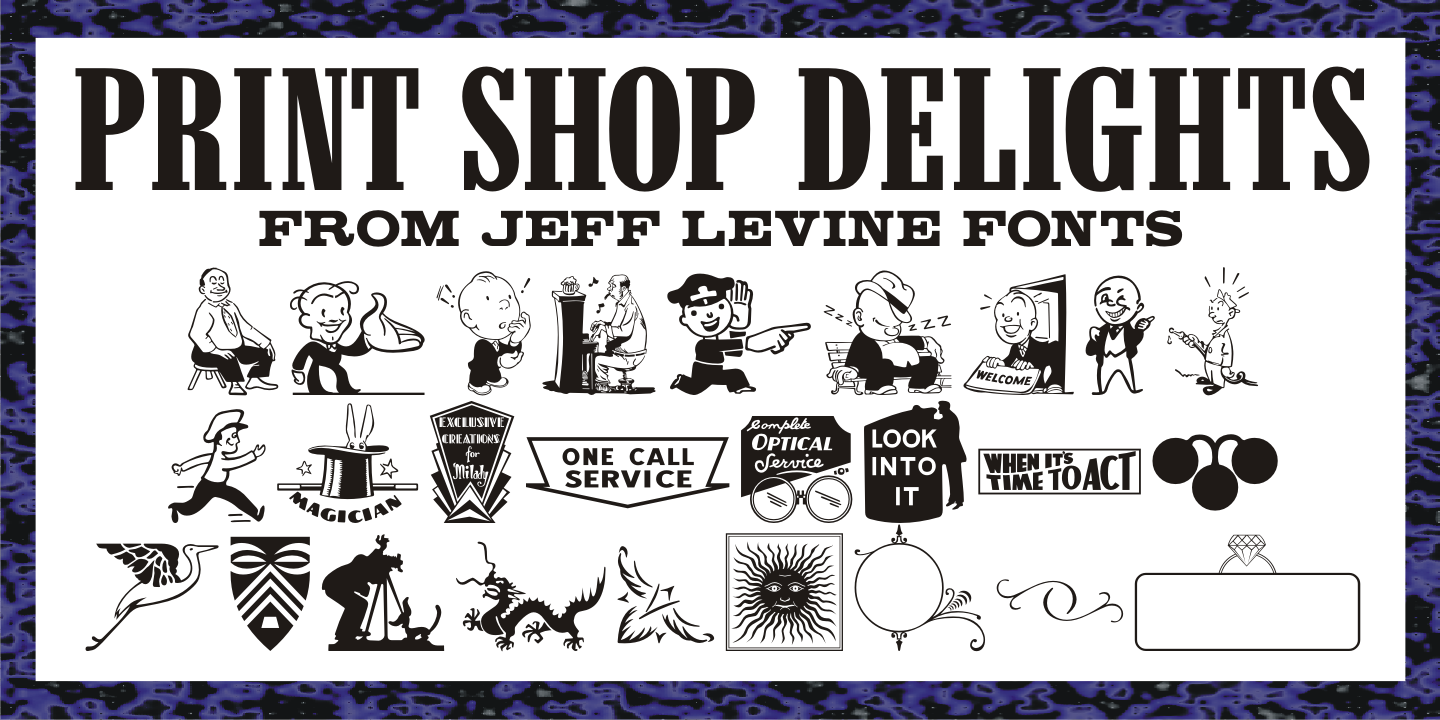
Print Shop Delights JNL is a dingbat font published by Jeff Levine Fonts.
Print Shop Delights JNL is another assortment of vintage letterpress cuts of cartoons, decorations, embellishments, border pieces and attention getters.
| Designer | Jeff Levine |